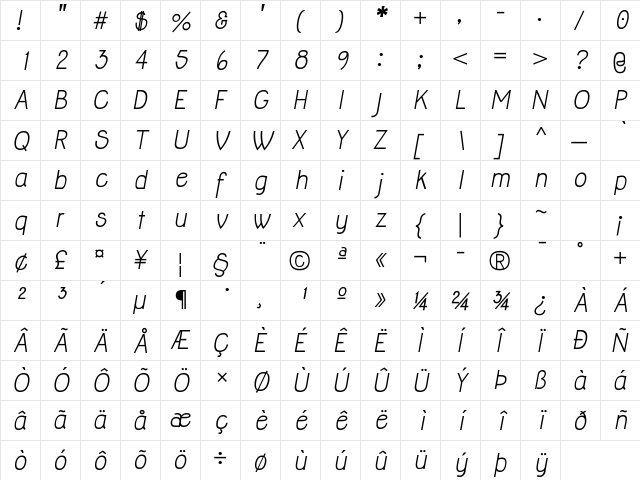
Jolly Italic
| Designer | Lauren Thompson |
Design Context for Jolly Typeface
Jolly offers clean, dependable letterforms without strong stylistic allegiance, making it a practical choice for designers who need flexibility. The dynamic lean of this cut emphasises speed and emphasis in any layout.
Pro Tip: Use Jolly for emphasis, pull quotes, and subheadings where its slanted energy can add rhythm to the layout.